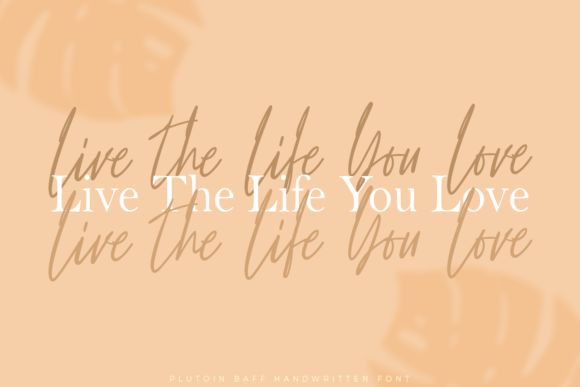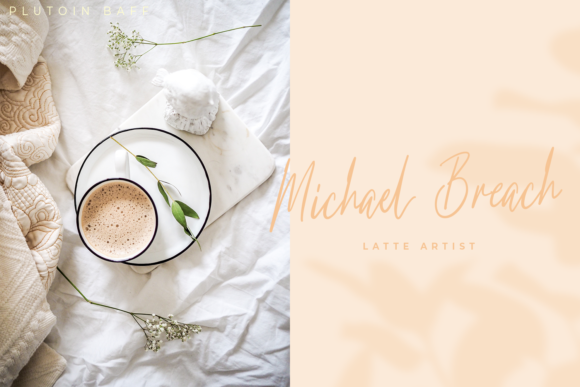
About Plutoin Baff Font
Plutoin Baff is an elegant and modern handwritten font. It is perfect for blogging, social media, branding, product packaging, wedding invitations, branding, headlines, signage, labels, signature, book covers, posters, quotes and more.